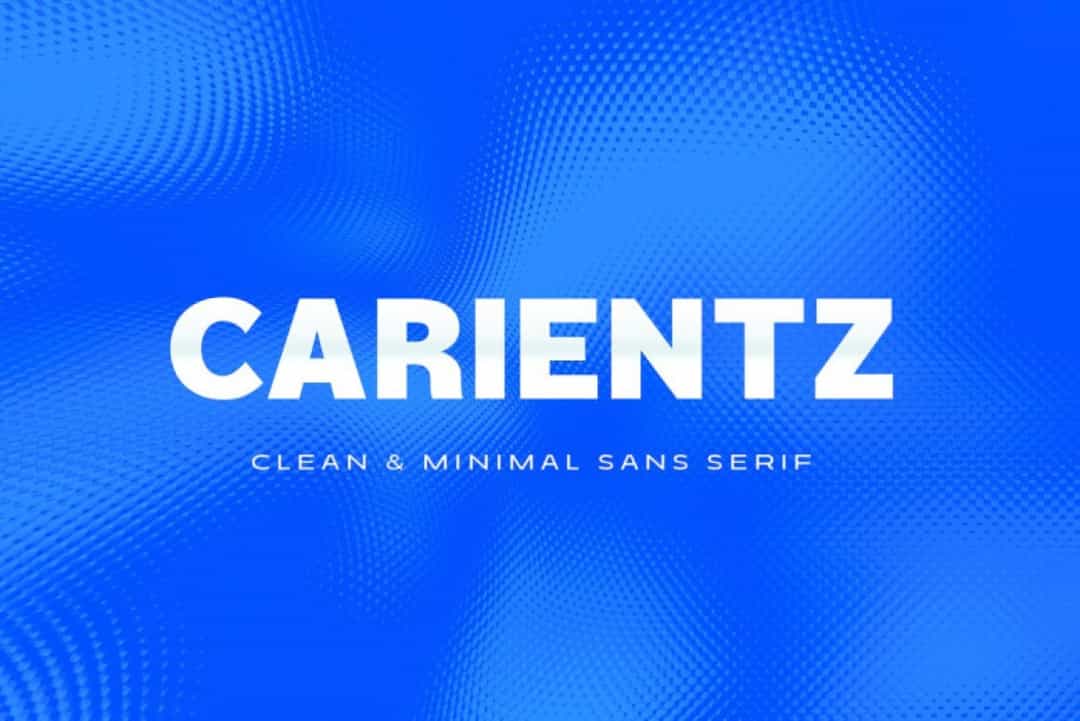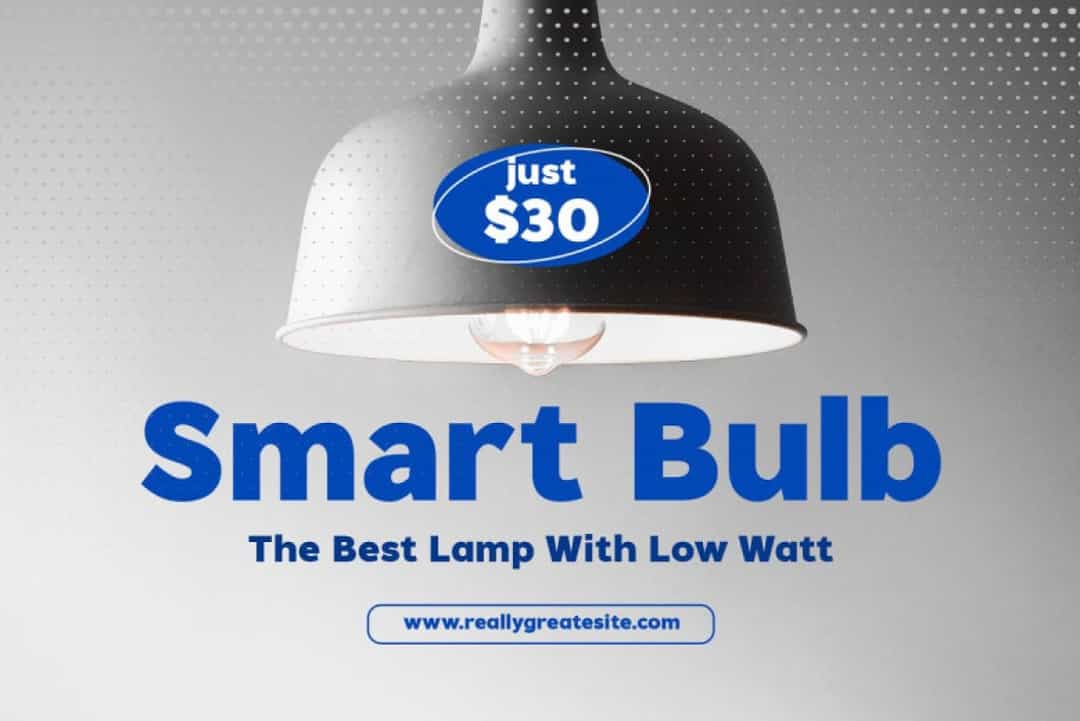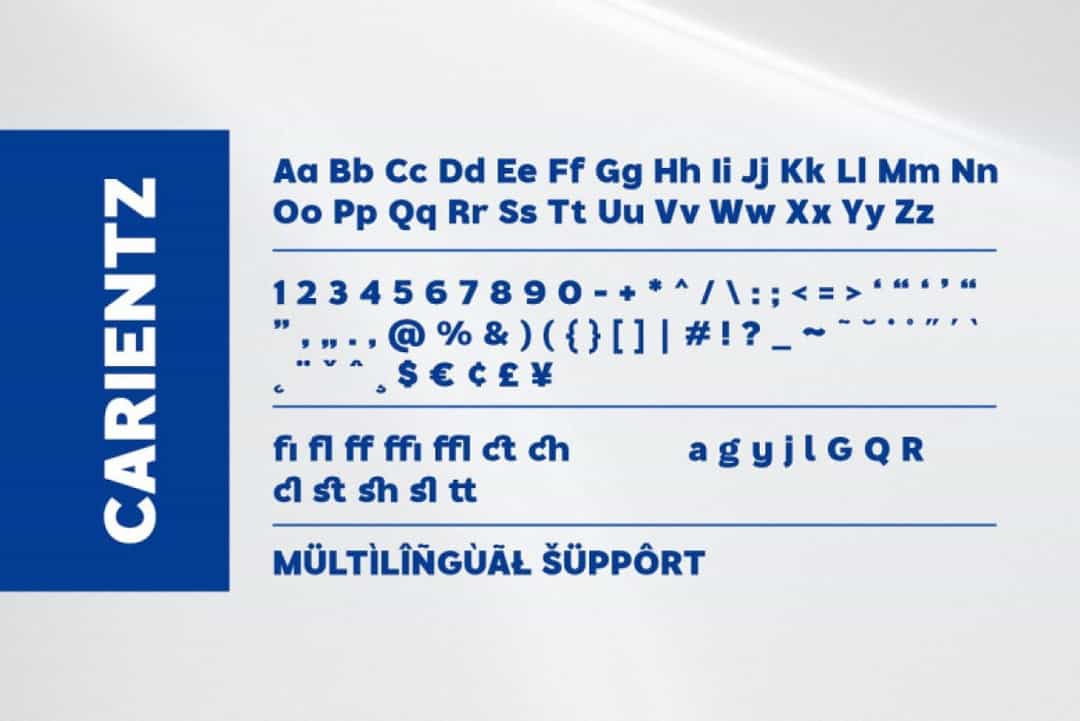
Carientz Modern Bold/Black Sans Serif Logo and branding Font, Techno Gadget Technology and Tech Display Font is an ideal choice for all of your upcoming projects, including logo design, branding and editorial pieces; stationary designs for sports gaming industry logos or editorial; sport design gaming industry sports graphics music posters digital apps modern marketing design art quotation interior decor book cover titles or special occasions or additional.